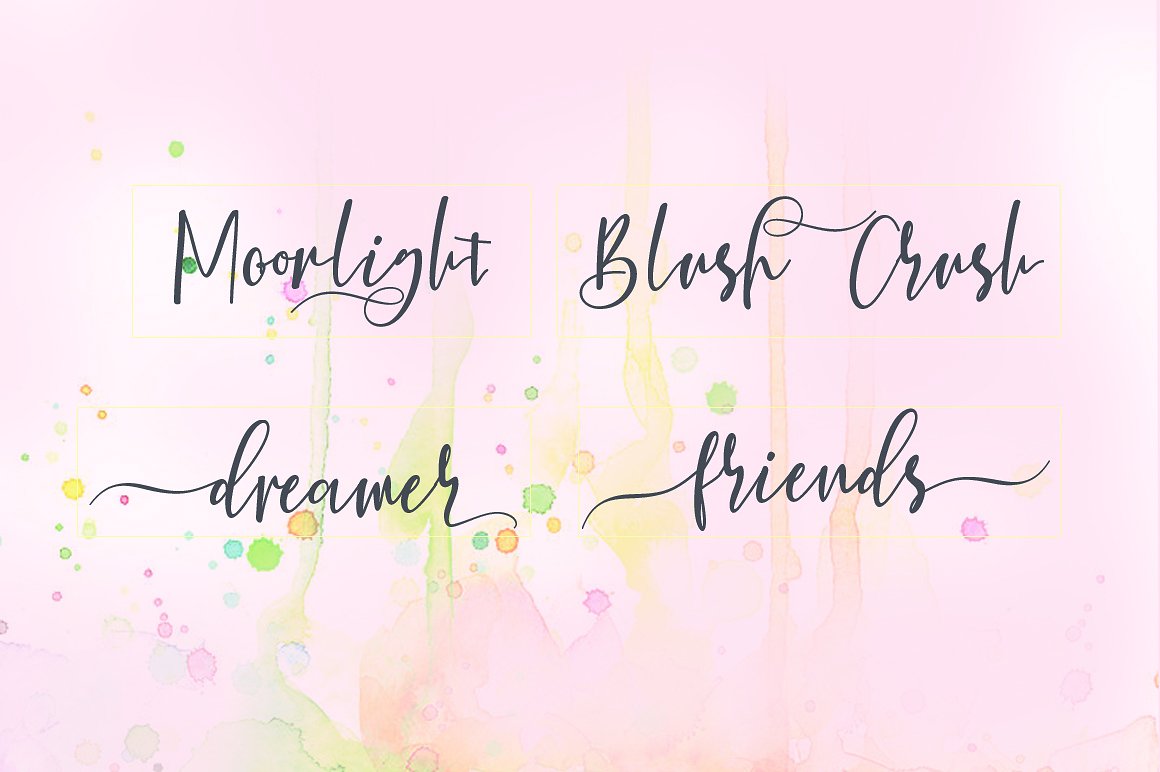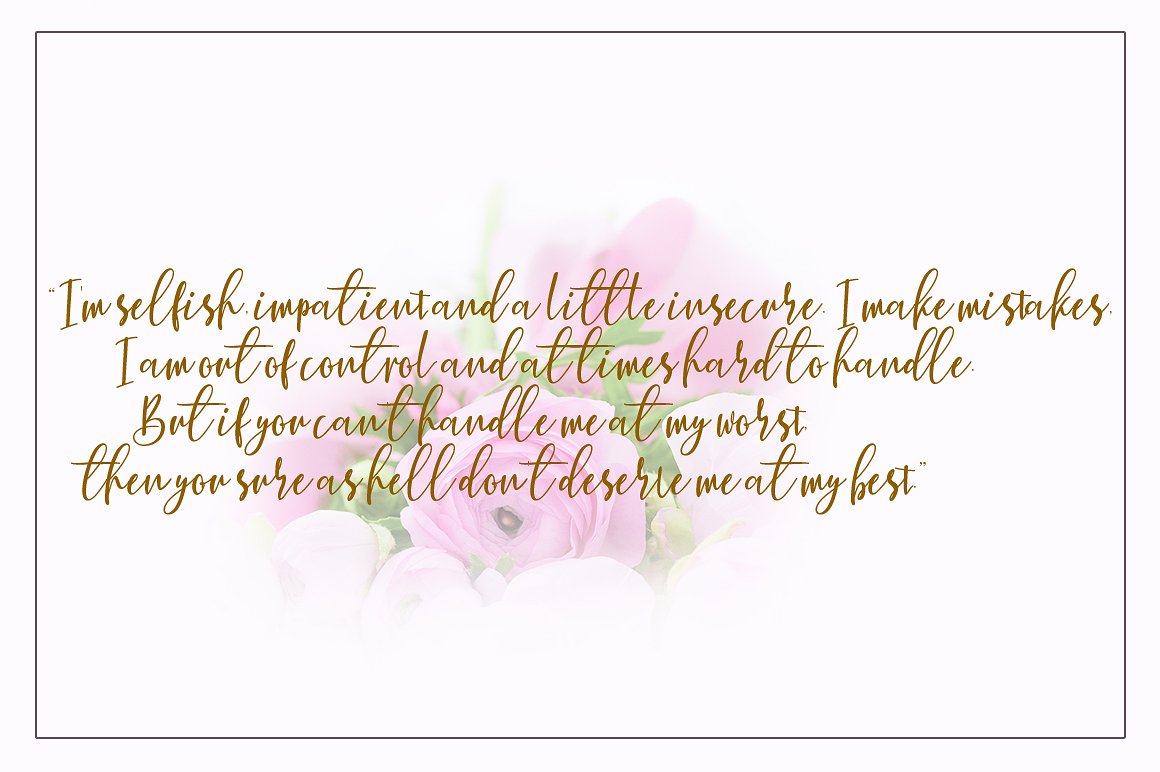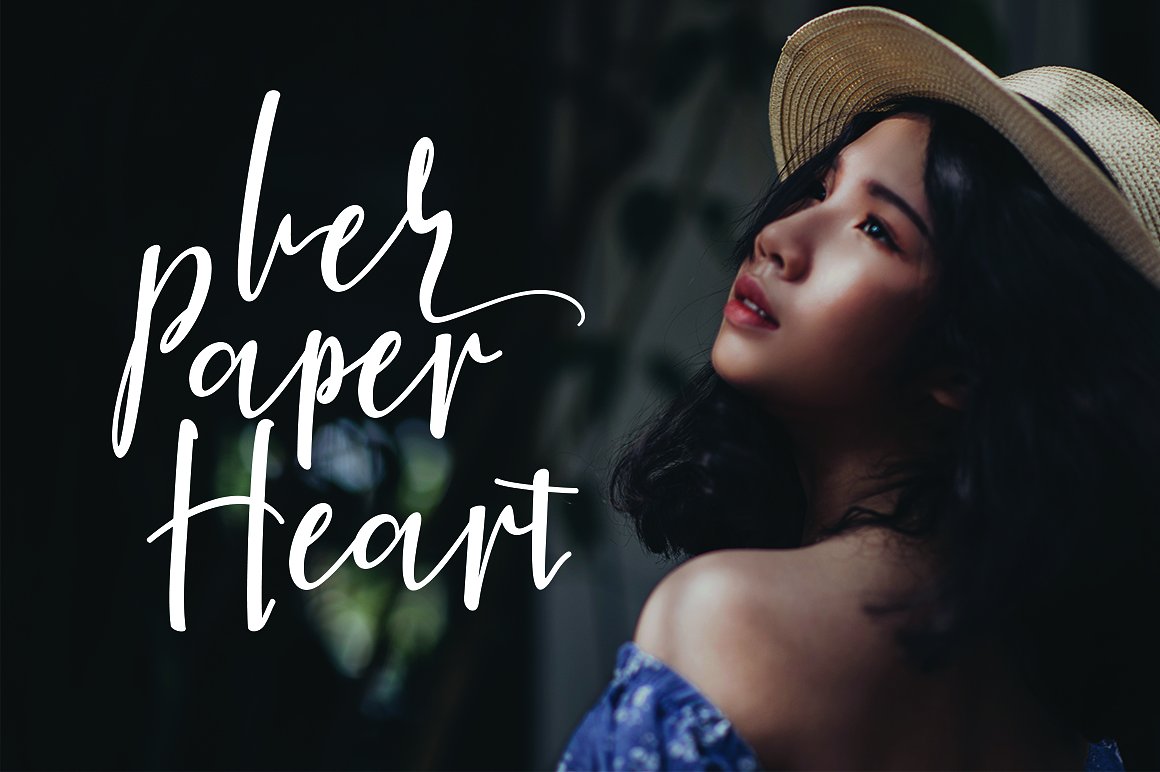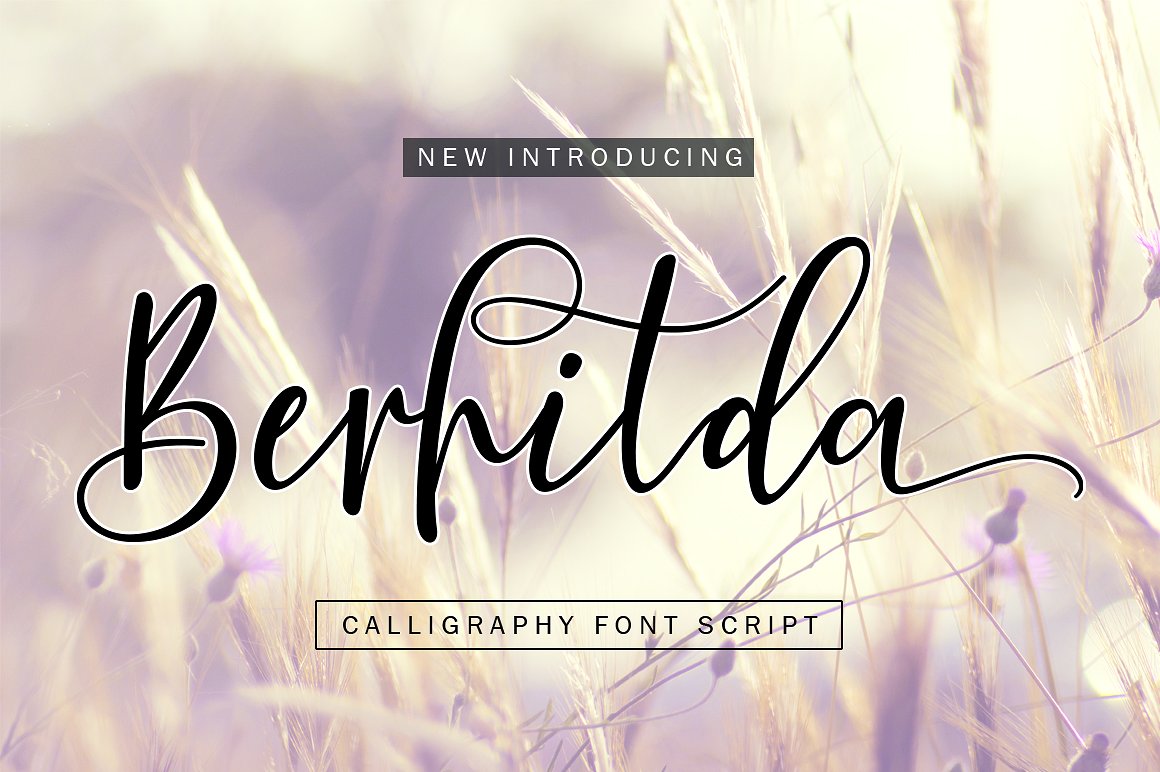
Berhilda Script Font
Berhilda Font– a new fresh handmade calligraphy font. You can create perfect and unique design . This font is perfect for branding, wedding invites, magazines, mugs, business cards, quotes, posters, and more, you can try first if you want to buy this font. Berhilda Script is equipped with 343 glyphs. and by having many of these glyphs there will be able to choose the letters according to your likes, lots of variations and options for each letter, so you can customize on your design choices.